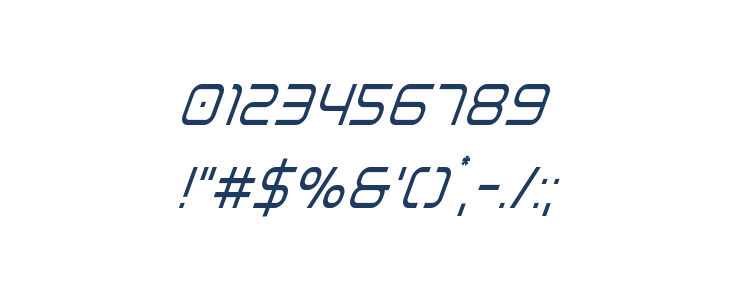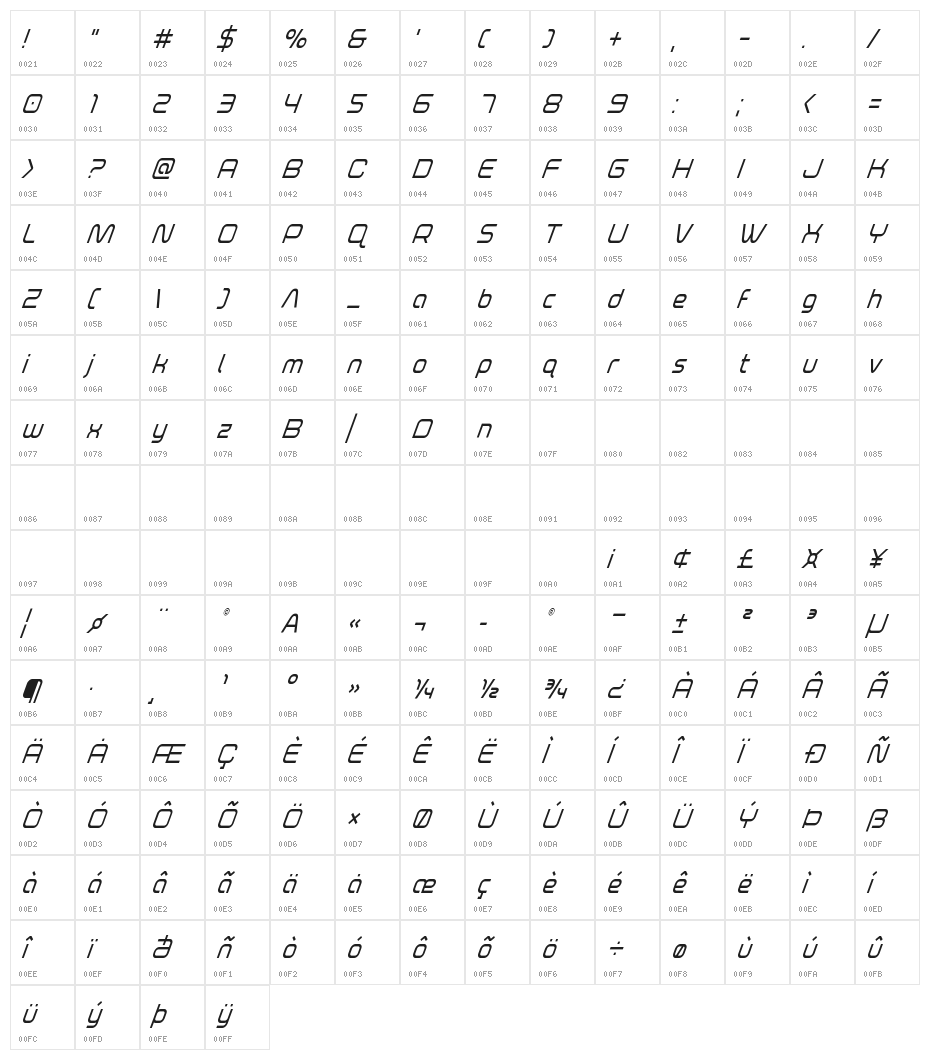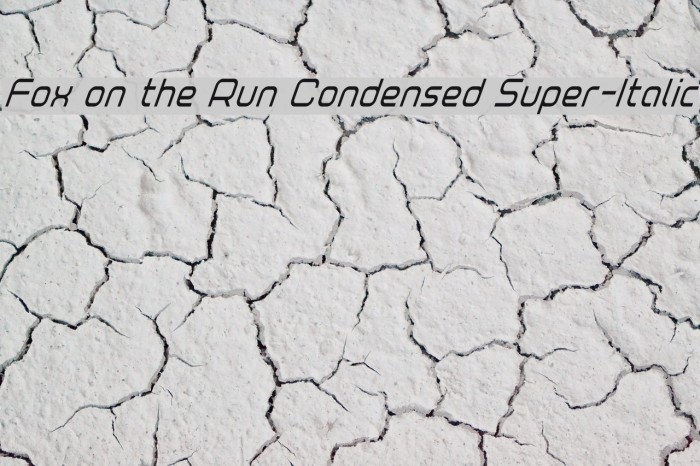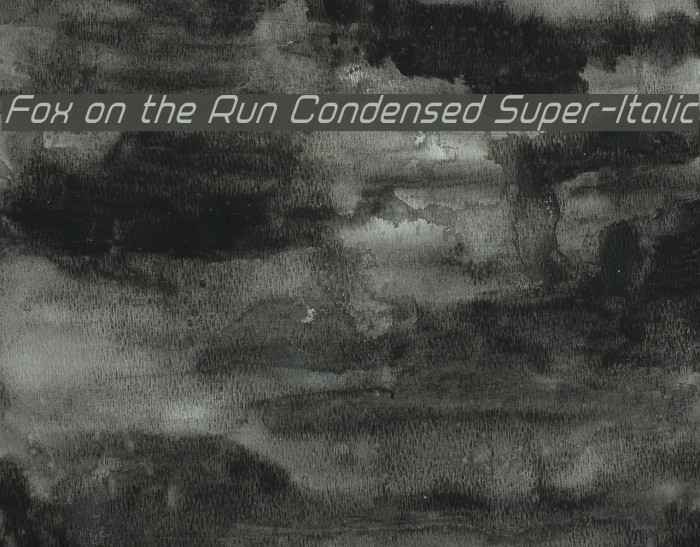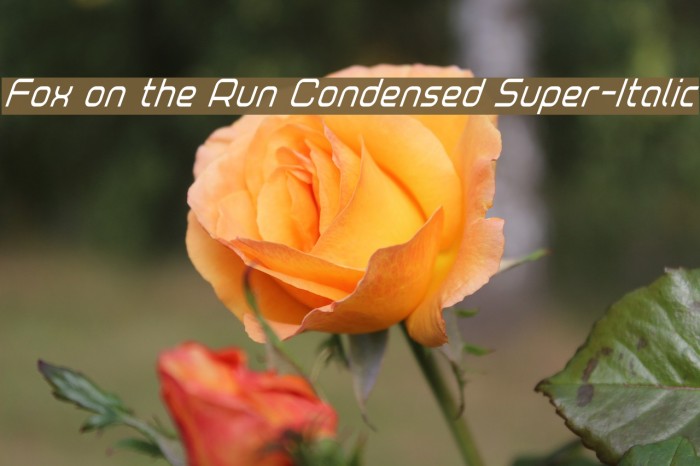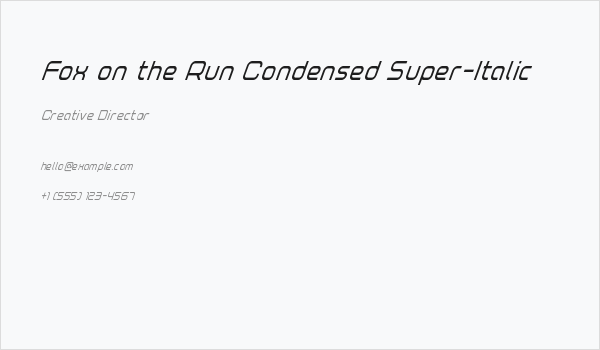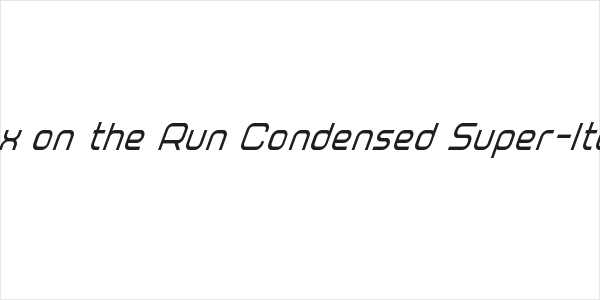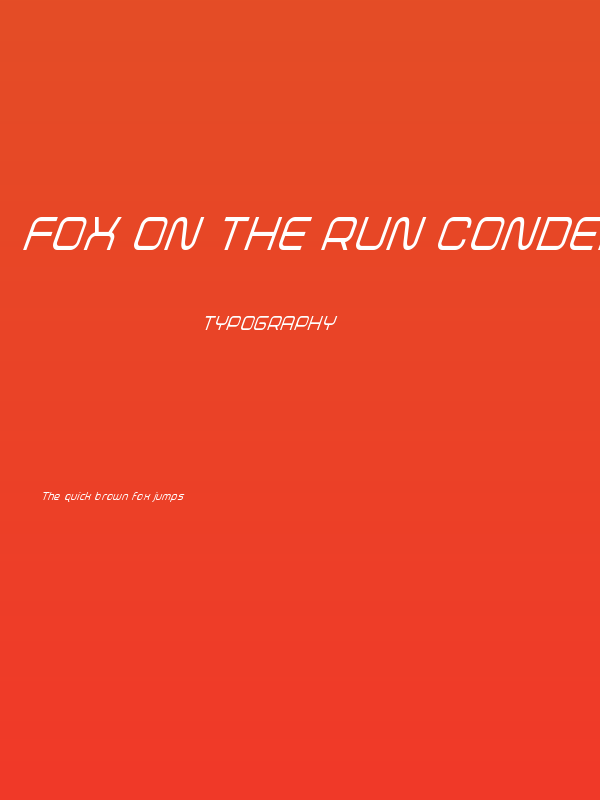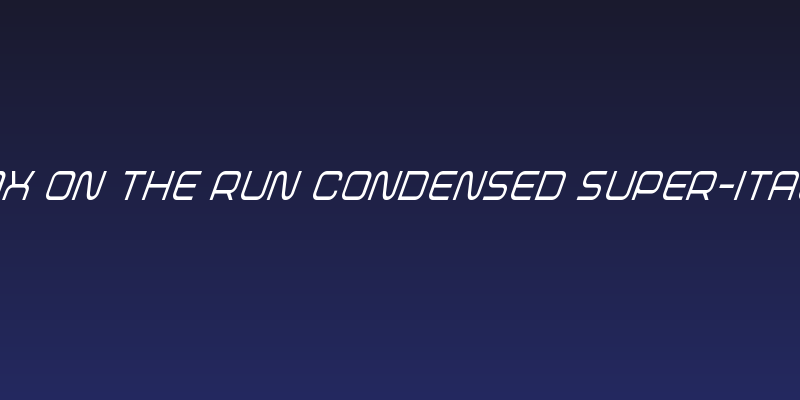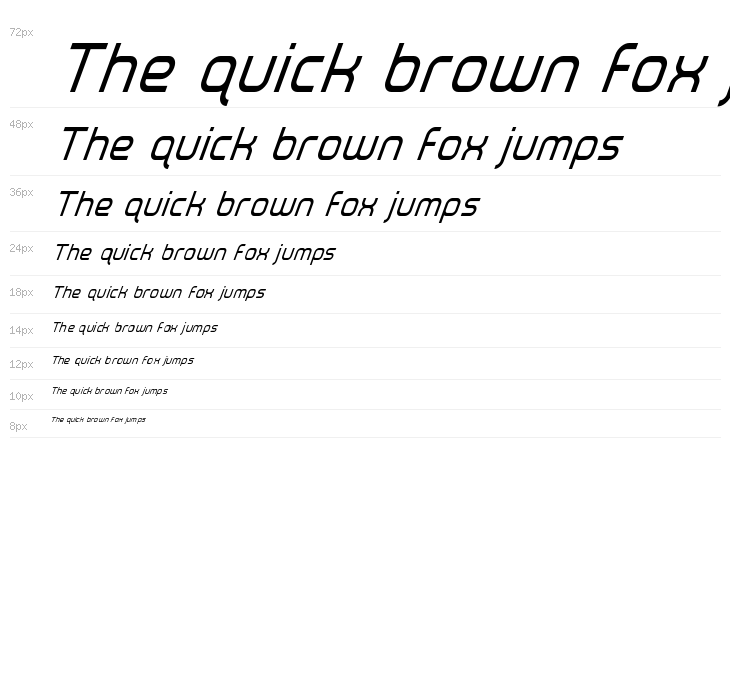
Fox on the Run Condensed Super-Italic Font
Fox on the Run Condensed Super-Italic Description
This font features a sleek and modern design with a condensed and italicized style, giving it a dynamic and forward-moving appearance. The characters are elongated with a slight slant, enhancing the sense of motion and speed. The strokes are consistent in weight, providing a uniform look across all characters. The font maintains a clean and professional aesthetic, suitable for various design applications. Its condensed nature allows for efficient use of space, making it ideal for headlines or areas where space is limited. The italic style adds a touch of elegance and sophistication, making it versatile for both formal and informal contexts.
| Use Case | Headlines, Logos, Advertising |
| Proposed Projects | Ideal for branding, advertising, sports-related designs, and modern editorial layouts. |